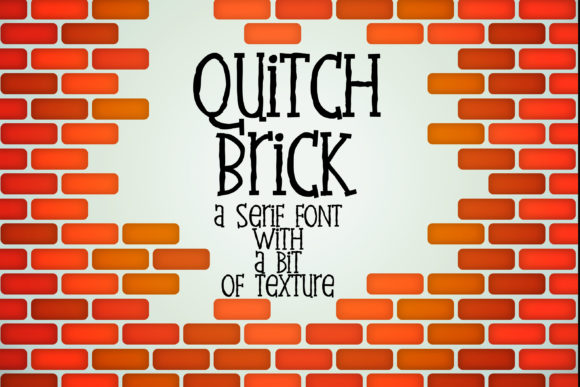
Quitch Brick Font
Font Name : Quitch Brick Font
Author : Illustration Ink
Allow your imagination to explore the enchanted realm of Quitch Brick, a captivating serif font that will add a touch of whimsical charm to your creative endeavors. This mesmerizing font, crafted by the talented hands at Illustration Ink, invites you to embark on a journey through captivating tales and enchanting designs.
Drawing inspiration from classic serif fonts, Quitch Brick is a unique creation that stands out with its playful and textural character. Its lowercase letters lack the traditional descenders, creating a distinctive look that sparks curiosity and wonder. The subtle interplay of thick and thin strokes lends a touch of elegance to this font, making it perfect for a wide range of design projects.
With Quitch Brick, you'll discover a font that knows no bounds. Its versatility shines in both digital and print applications, effortlessly enhancing logos, branding, posters, and invitations. Unleash your creativity and let Quitch Brick weave its magic into your designs, captivating your audience and leaving a lasting impression.
Quitch Brick is more than just a font; it's an artistic expression that ignites imagination and captivates hearts. Embark on a creative journey with this delightful font, and watch as your designs take flight. With Quitch Brick, the possibilities are limitless, so let your curiosity soar and experience the wonder that awaits.